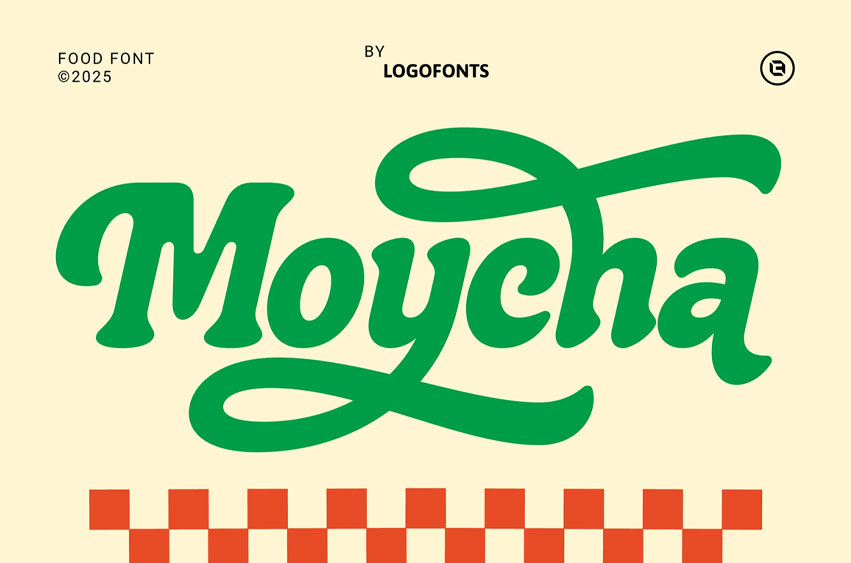
Moycha Font
Moycha Font is a smooth and flavorful script font inspired by the charm of café culture and sweet indulgence. With its flowing curves and bold personality, it’s perfect for coffee, bakery, and restaurant branding that wants to look fresh, friendly, and full of character. Ideal for menu design, ice cream packaging, or kitchen product labels that blend taste and style beautifully.
Designed to bring life to every bite and sip, MOYCHA works wonderfully for burger, candy, and pizza logos, as well as chocolate and cooking projects. Its dynamic energy makes it a top choice for expressive brand identity work—combining playfulness, appetite, and handcrafted elegance in one delicious typeface.